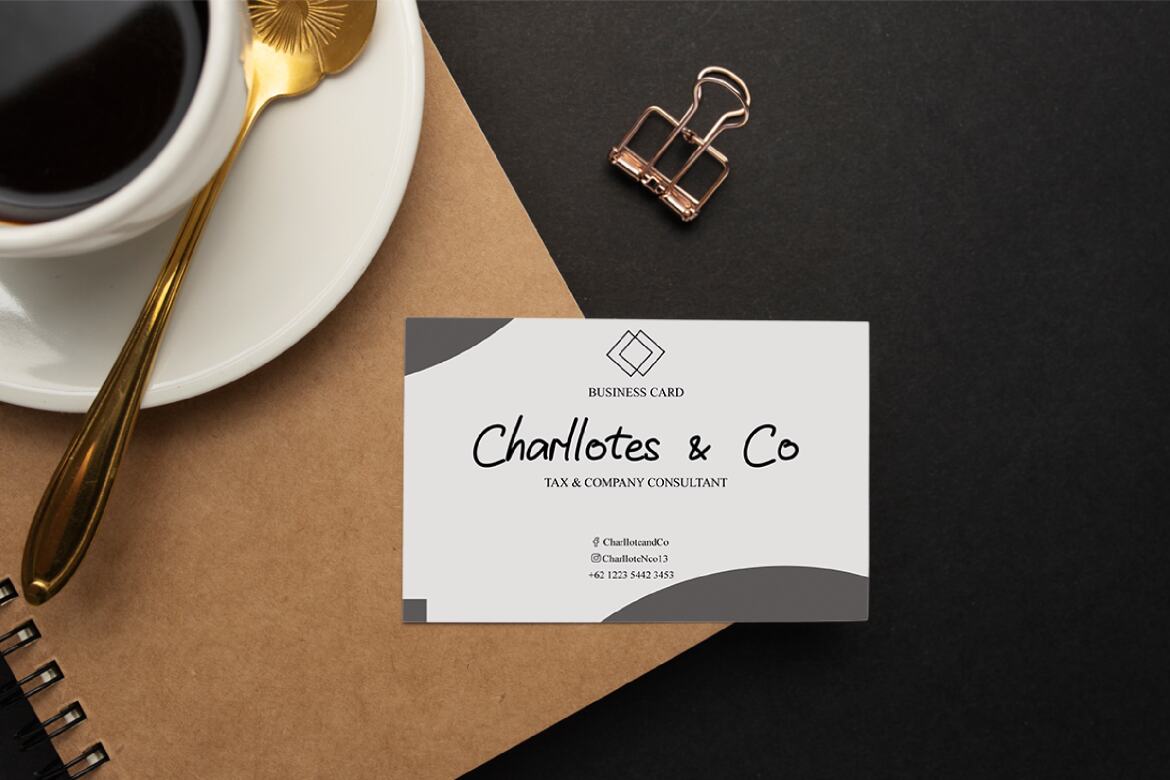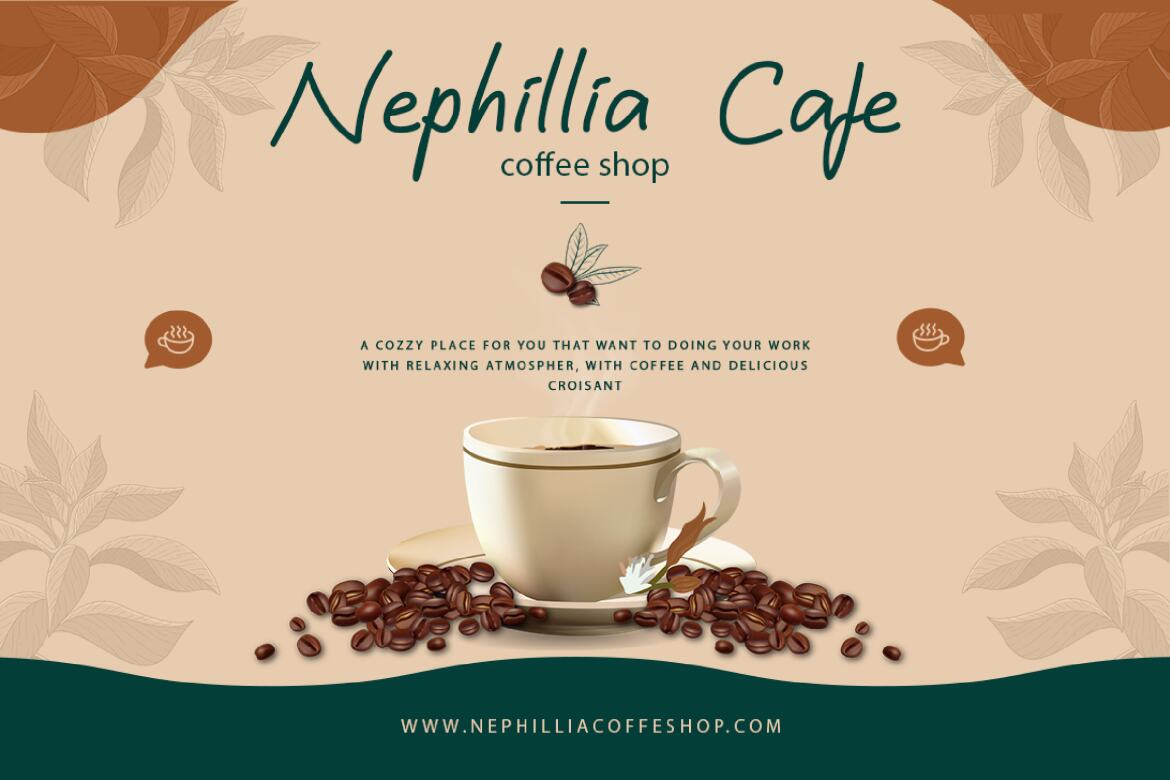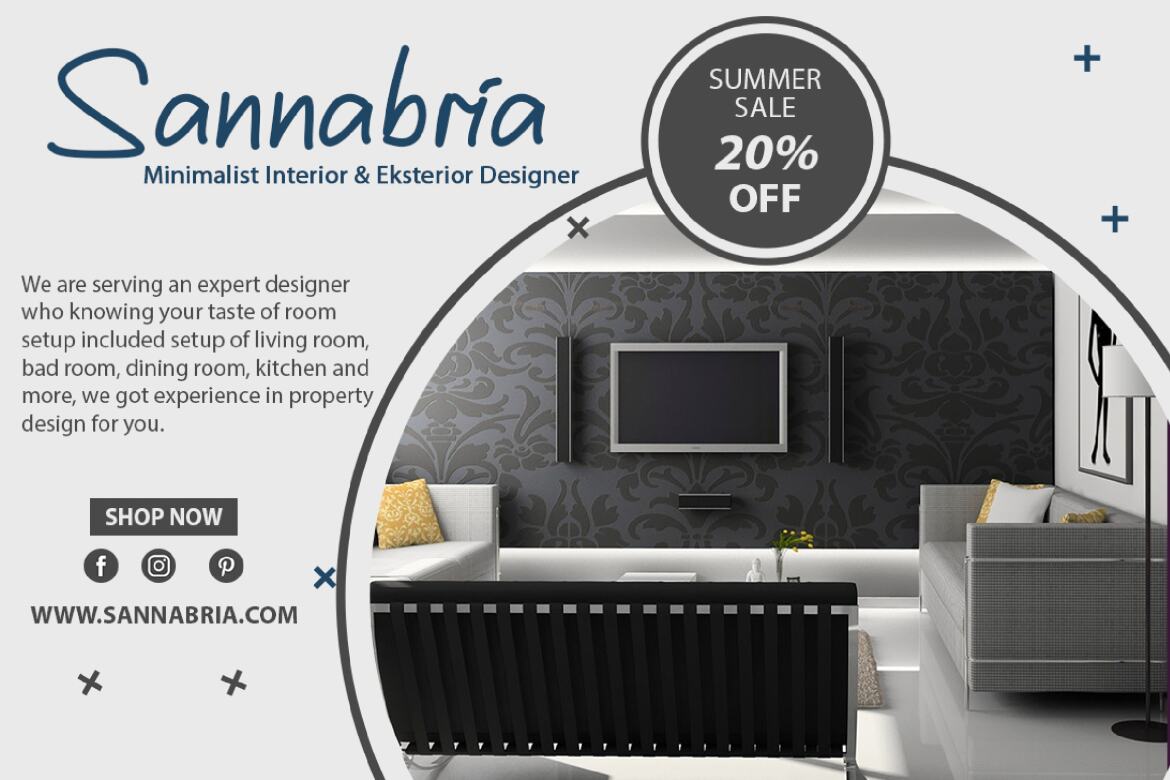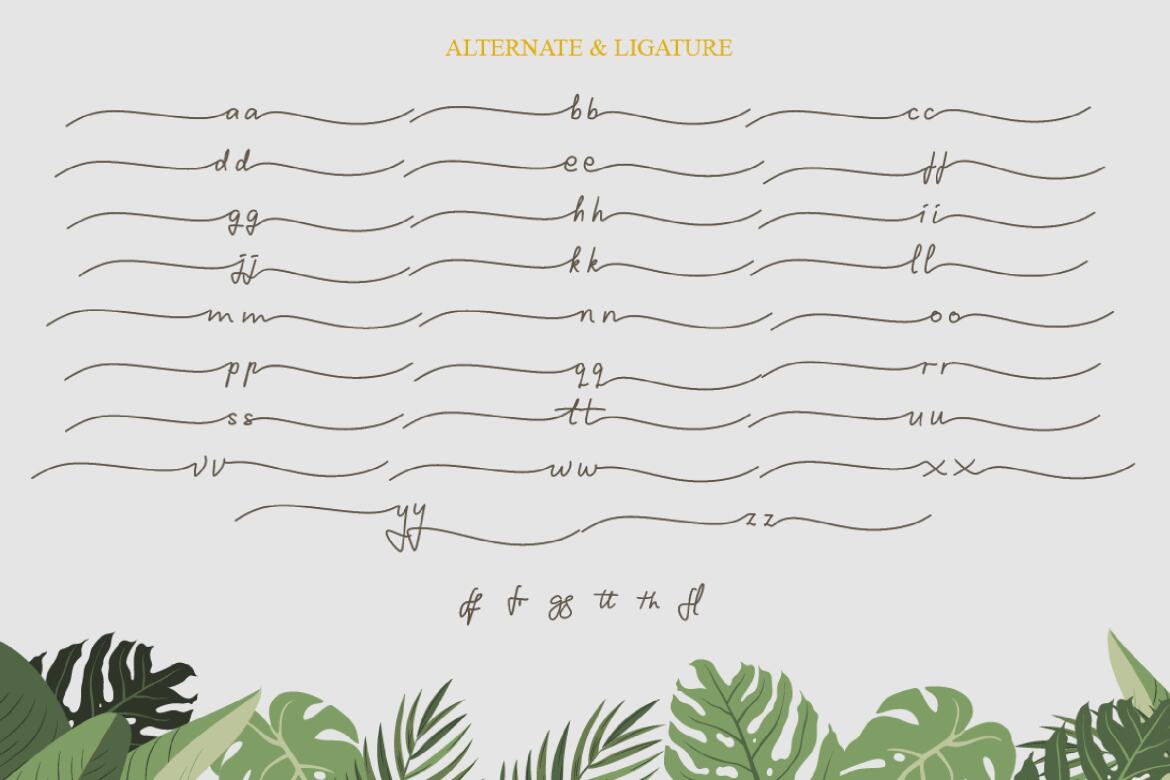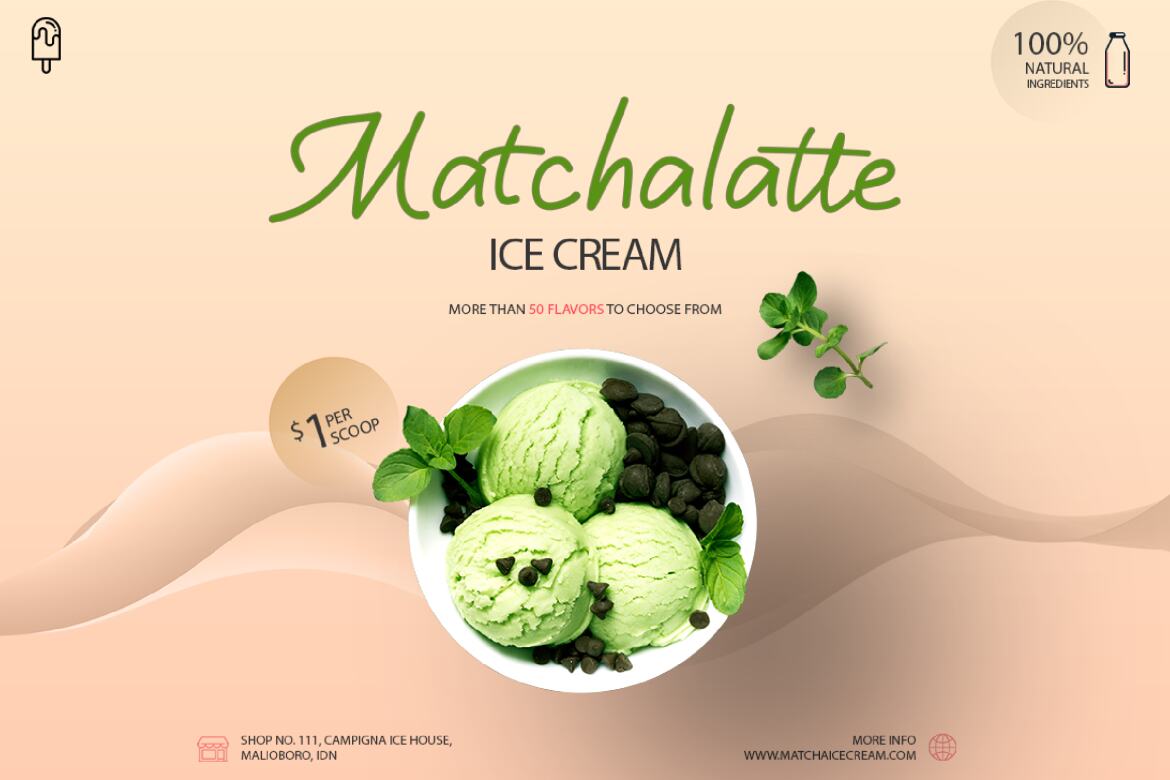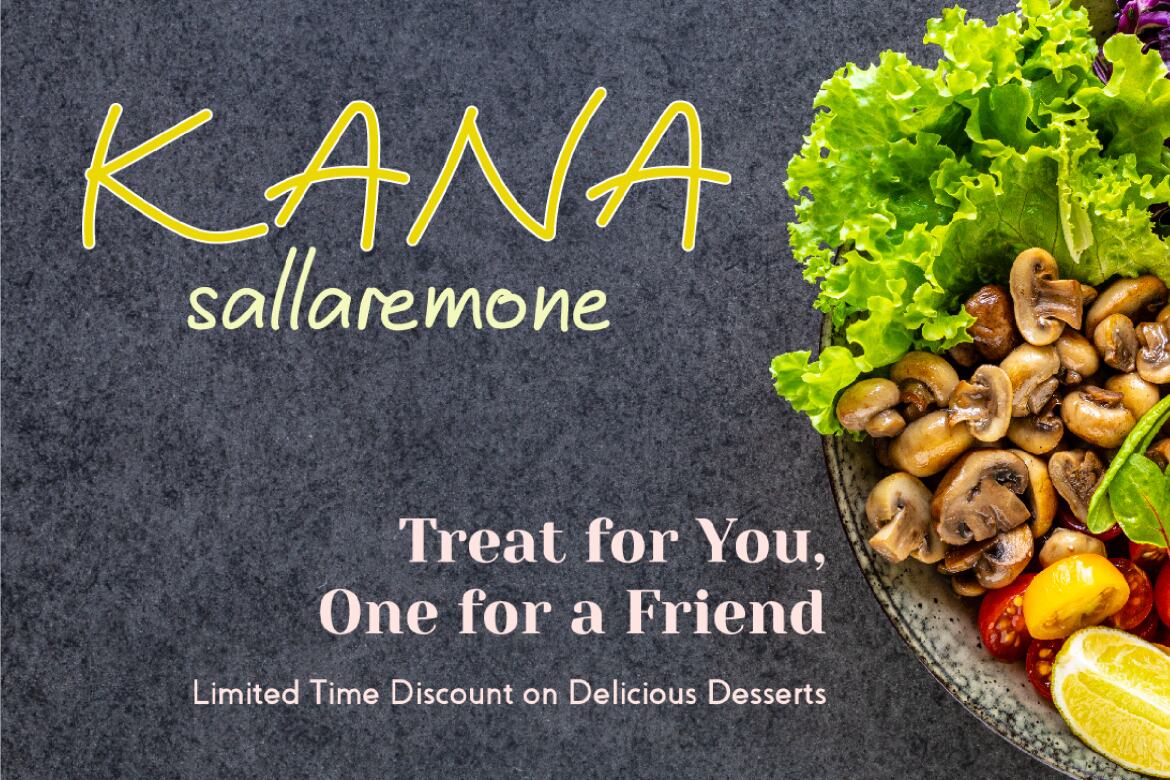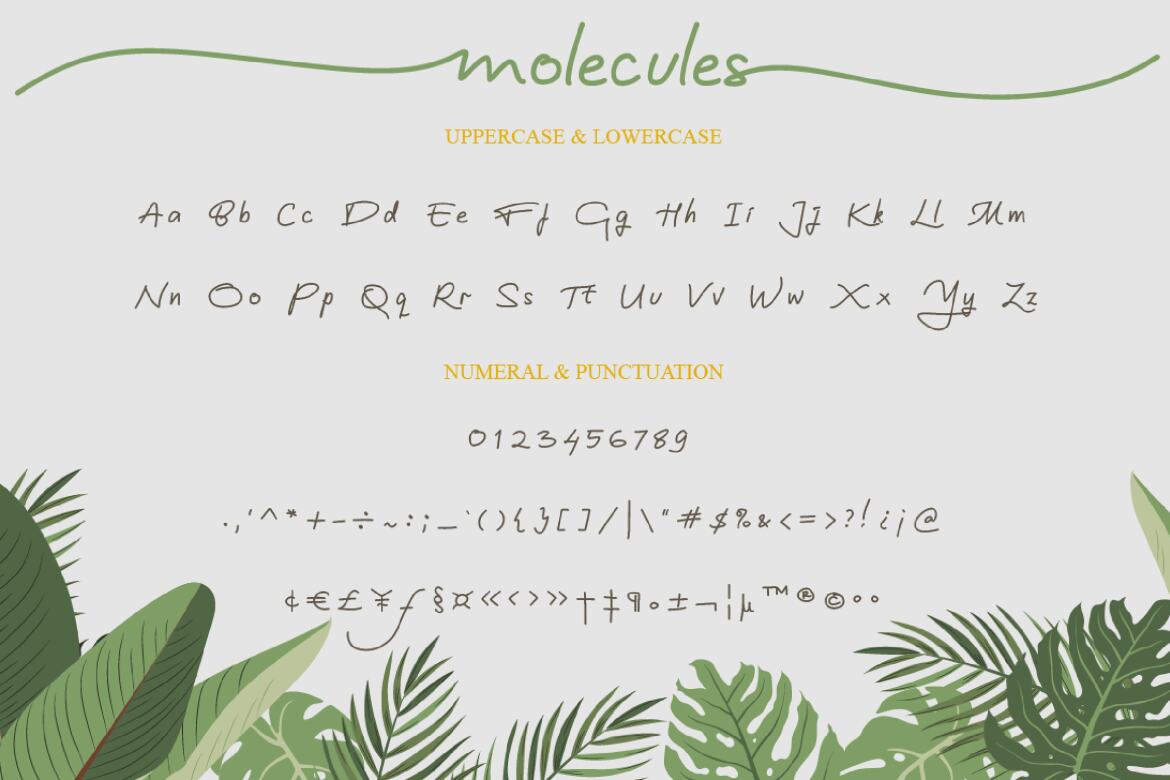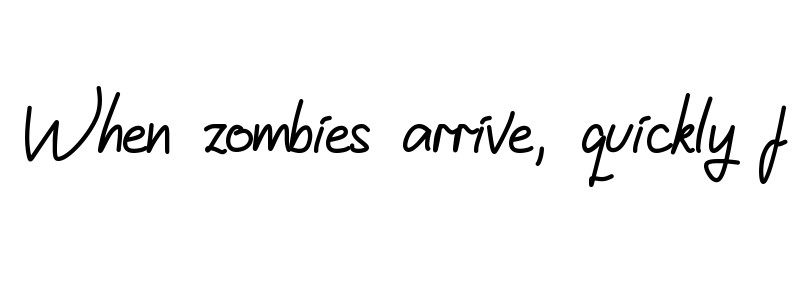
Molecules - Free Script Font
The "Molecules" is a stylish feminine font. It includes amazing swashes which will add a feminine touch to your designs.
• 52 swashes & stylistic alternates
• international language
• numeral, punctuation, & ligatures